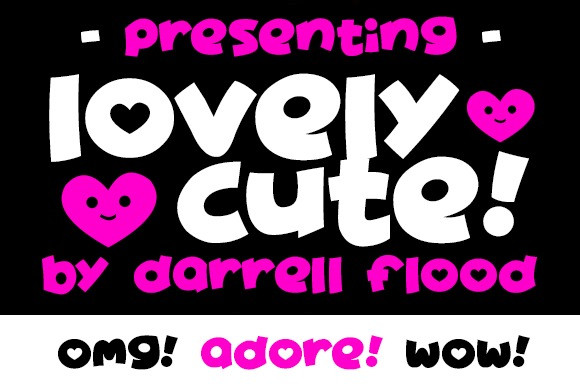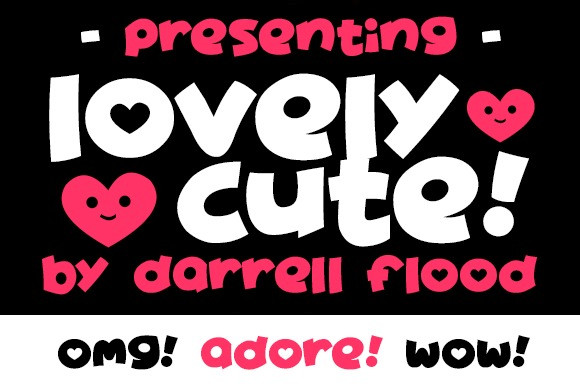
Lovely Cute Font
Lovely Cute Display Font , a lovely, super cute font in a round, funny style. Perfect for Dove love stories, Valentine cards and use cartoons in general!